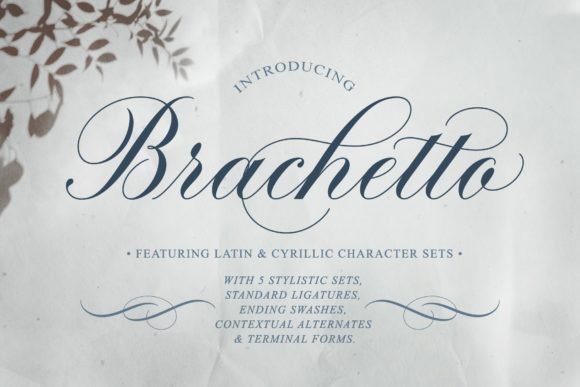
Unleash Your Creative Potential with Brachetto Font
Have you ever been in the zone, surrounded by scribbled notes and scattered ideas, only to have a burst of inspiration strike and your entire project takes shape? That’s the magic of creativity, and it’s exactly what the Brachetto Font is designed to capture. This gorgeous script font updates classic calligraphy with a sensual, modern twist, making it the perfect tool for designers looking to add a touch of elegance to their work.
Whether you’re a seasoned pro or just starting out, Brachetto Font is a valuable addition to any design arsenal. Its versatility and sophistication make it an ideal choice for a wide range of projects, from wedding invitations to luxury branding materials. With Brachetto Font, you’ll be able to ignite your creativity and bring your ideas to life in a way that’s both beautiful and unique.
Key Features of Brachetto Font
- Font Family: Brachetto, Brachetto Italic, Brachetto Bold, Brachetto Bold Italic
- Font Style: Script, Handwritten, Decorative
- Character Set: Latin, Latin Extended-A, Latin Extended-B, Cyrillic
- Unique Characteristics: Hand-drawn style, elegant and luxurious feel, perfect for wedding invitations, formal events, and luxury branding
Brachetto Font Review
As a designer, I was excited to dive into the Brachetto Font, and I must say it has some amazing qualities. ✨ The first thing that caught my eye was the elegant, handwritten feel it gives to any text. It’s perfect for creating a romantic, vintage vibe that’s hard to resist. ✨ The font is also incredibly versatile, suitable for a wide range of applications from wedding invitations to food labels.
- Unique, elegant feel that’s perfect for romantic designs
- Highly versatile, suitable for various applications
- Perfect for creating a vintage or handmade look
However, as with any font, there are some limitations. ⚠️ The Brachetto Font is not ideal for large blocks of text, as it can become difficult to read due to its handwritten nature. Additionally, the font may not be suitable for digital applications, as it’s more suited for print materials. ⚠️
Overall, I’m impressed with the Brachetto Font, and I would highly recommend it for designers looking to add a touch of elegance and romance to their projects. While it may have some limitations, its unique qualities make it a valuable addition to any font collection.
Tips for Getting the Most Out of Brachetto Font
For optimal results, use Brachetto Font for titles, headings, and emphasis. It pairs well with bold, sans-serif fonts for body text.
Brachetto Font is ideal for:
- Food and wine labels
- Special occasion announcements
Alternatives to Brachetto Font
Carolyna Pro is a modern script font that is perfect for creating elegant and sophisticated designs. It’s ideal for use in wedding invitations, branding, and packaging. This font is more elegant and refined compared to Brachetto Font, which is more playful and whimsical.
Comparison: While Brachetto Font has a more casual feel, Carolyna Pro is more formal and suitable for high-end designs.
Alex Brush is a handwritten script font that is great for creating personal and artistic designs. It’s perfect for use in branding, invitations, and stationery. This font is more organic and natural compared to Brachetto Font, which is more stylized and ornate.
Comparison: While Brachetto Font has a more uniform and consistent feel, Alex Brush is more free-flowing and expressive.
Great Vibes is a modern script font that is perfect for creating fun and energetic designs. It’s ideal for use in social media graphics, advertising, and event branding. This font is more dynamic and playful compared to Brachetto Font, which is more elegant and refined.
Comparison: While Brachetto Font has a more sophisticated feel, Great Vibes is more casual and attention-grabbing.
Pacifico is a beautiful script font that is perfect for creating beachy and laid-back designs. It’s ideal for use in branding, packaging, and advertising. This font is more relaxed and casual compared to Brachetto Font, which is more formal and elegant.